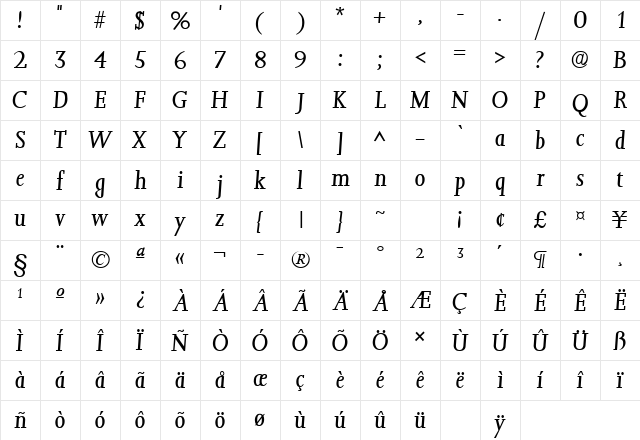
KelterSSK Italic
KelterSSK Family
Design Context for KelterSSK
KelterSSK is a composed and adaptable typeface that performs quietly and consistently across a wide range of design contexts. The slanted form adds forward momentum and visual energy.
Pro Tip: Use KelterSSK for emphasis, pull quotes, and subheadings where its slanted energy can add rhythm to the layout.